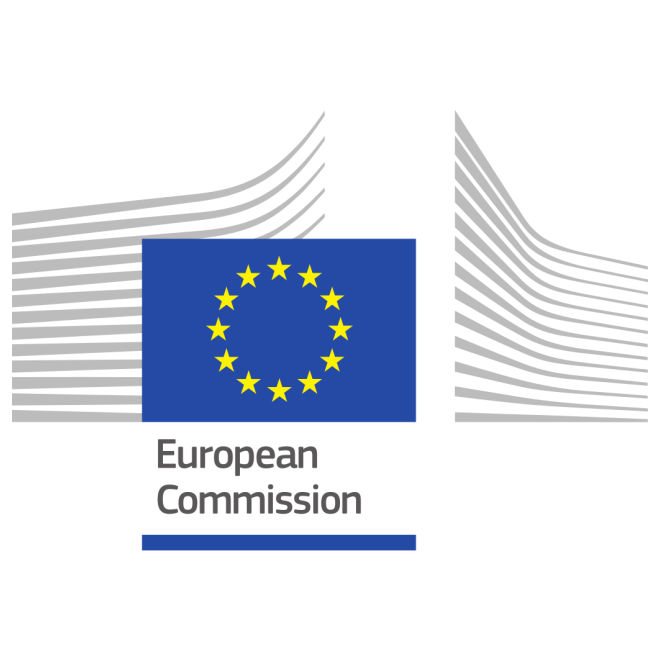
European Commission Logo Font
Fonts in UseThe European Commissionis the executive branch of the European Union responsible for proposing legislation, implementing decisions, and managing the day-to-day business of the EU. It is composed of one commissioner from each EU member state, appointed by the member states in consultation with the President of the Commission.
The EC logo has two key elements: the European flag and a graphic inspired by the Commission's headquarters. The logo is accompanied by a wordmark in Square Sans Medium typeface from Parachute. Square Sans Pro, created by Panos Vassiliou, is a squarish typeface that balances simplicity with vitality and includes 12 fonts with true italics.